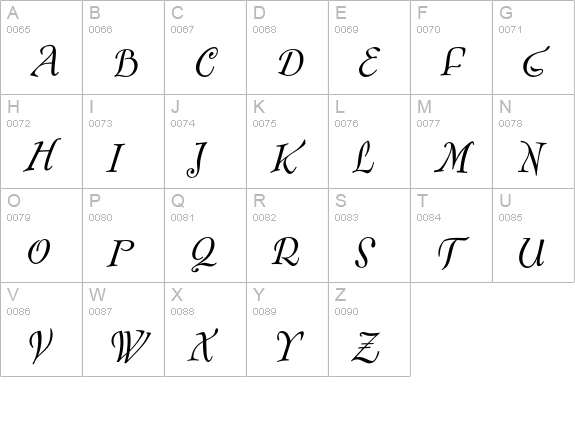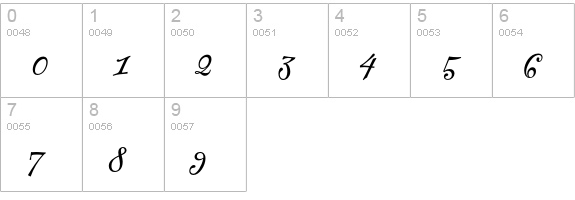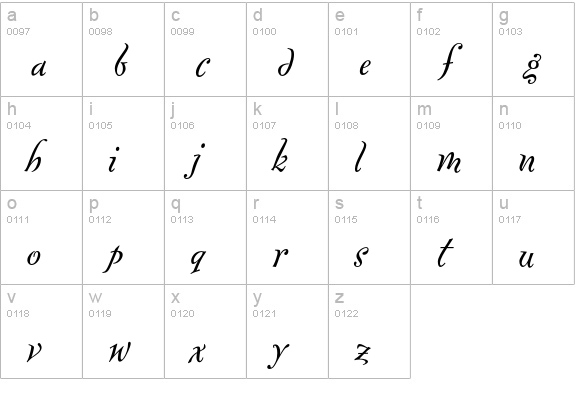
FontesqueText-Italic is a distinctive, italic variant in the FontesqueText typeface family \xE2\x80\x94 well suited to design and typography projects.
FontesqueText-Italic is a beautifully designed italic font that exudes elegance and sophistication. Its delicate letterforms and graceful curves make it perfect for adding a touch of refinement to any project. This font is ideal for conveying a sense of style and sophistication in branding, editorial design, and more. What sets FontesqueText-Italic apart is not just its aesthetics, but also the fact that it is available for free download at FontsMarket.com. This means that you can easily add this stunning font to your collection without any cost, making it an accessible option for designers and creatives looking to elevate their work with a touch of class. Whether you're working on a website, a print design, or any other project that calls for a touch of elegance, FontesqueText-Italic is sure to impress. Download it for free today and see how it can enhance your next creative endeavor.